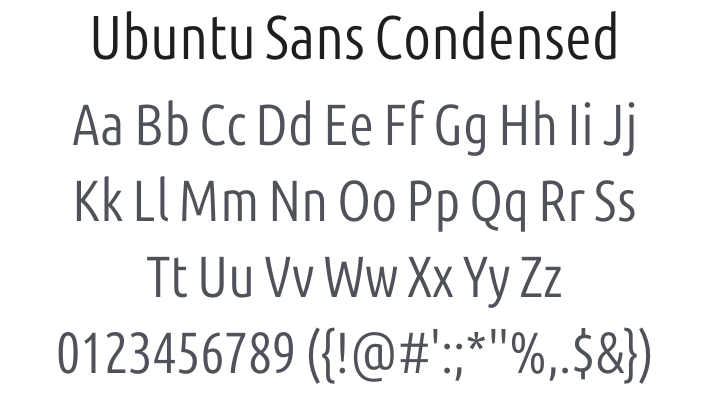
Ubuntu Sans Condensed Font Family
by Dalton Maag
About Ubuntu Sans Condensed
The Ubuntu Font Family are a set of matching new libre/open fonts in development during 2010-2011, with further expansion work and bug fixing in 2015 and 2022-2023. The development is being funded by Canonical Ltd on behalf the wider Free Software community and the Ubuntu project. The technical font design work and implementation has been undertaken by Dalton Maag, Type Network, DJR, and Dual Type.
The new Ubuntu Font Family was started to enable the personality of Ubuntu to be seen and felt in every menu, button and dialog.
The scope of the Ubuntu Font Family includes all the languages used by the various Ubuntu users around the world in tune with Ubuntu's philosophy which states that every user should be able to use their software in the language of their choice. So the Ubuntu Font Family project will be extended to cover many more written languages.